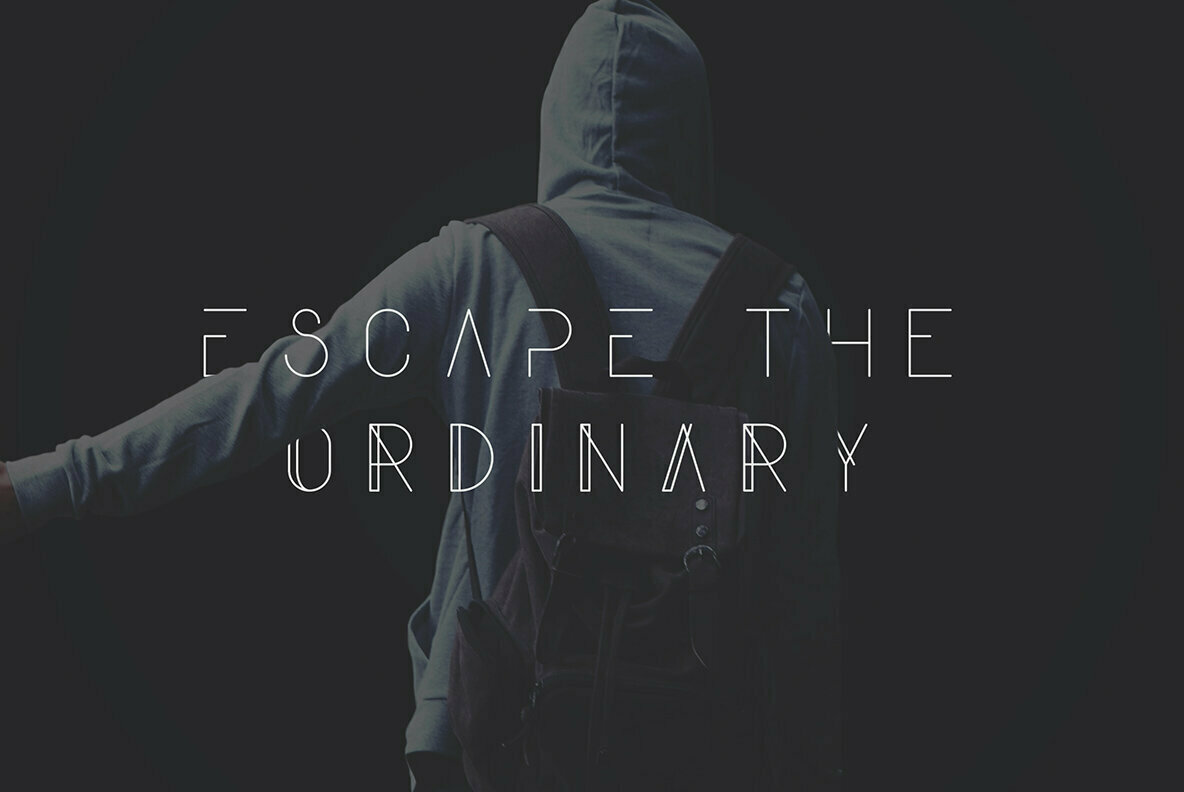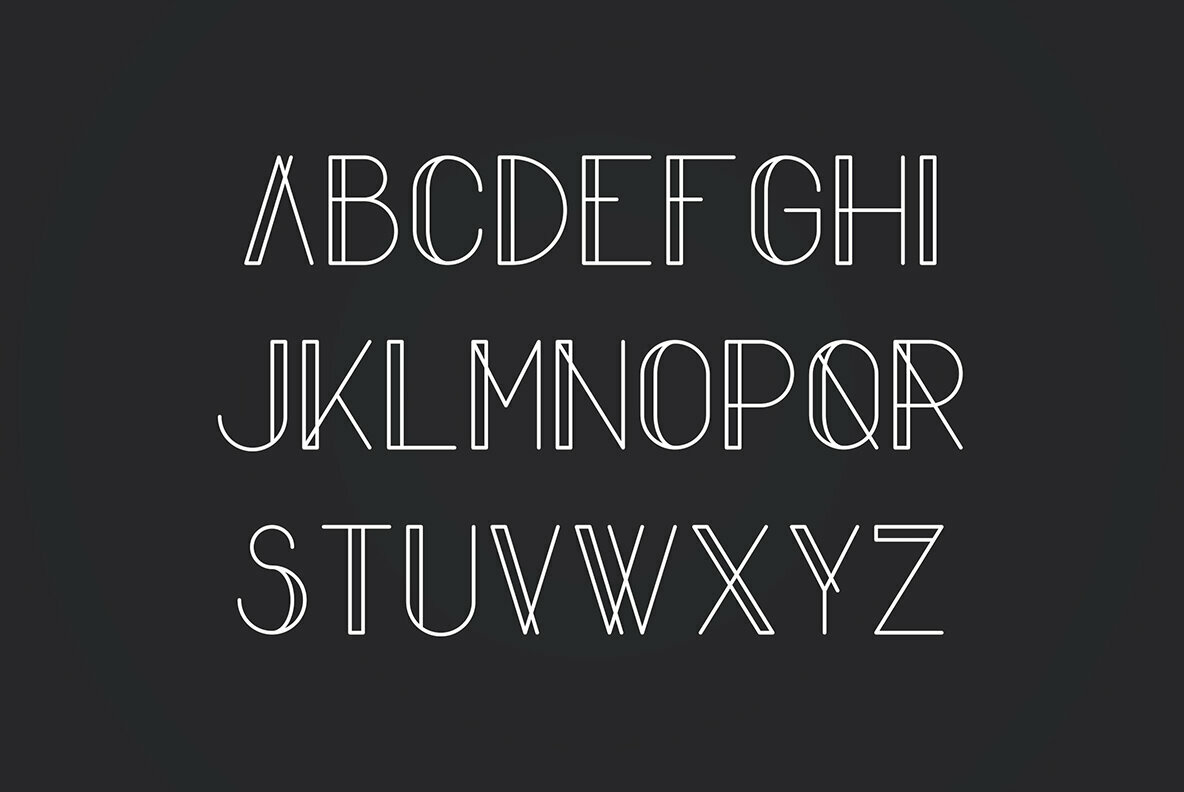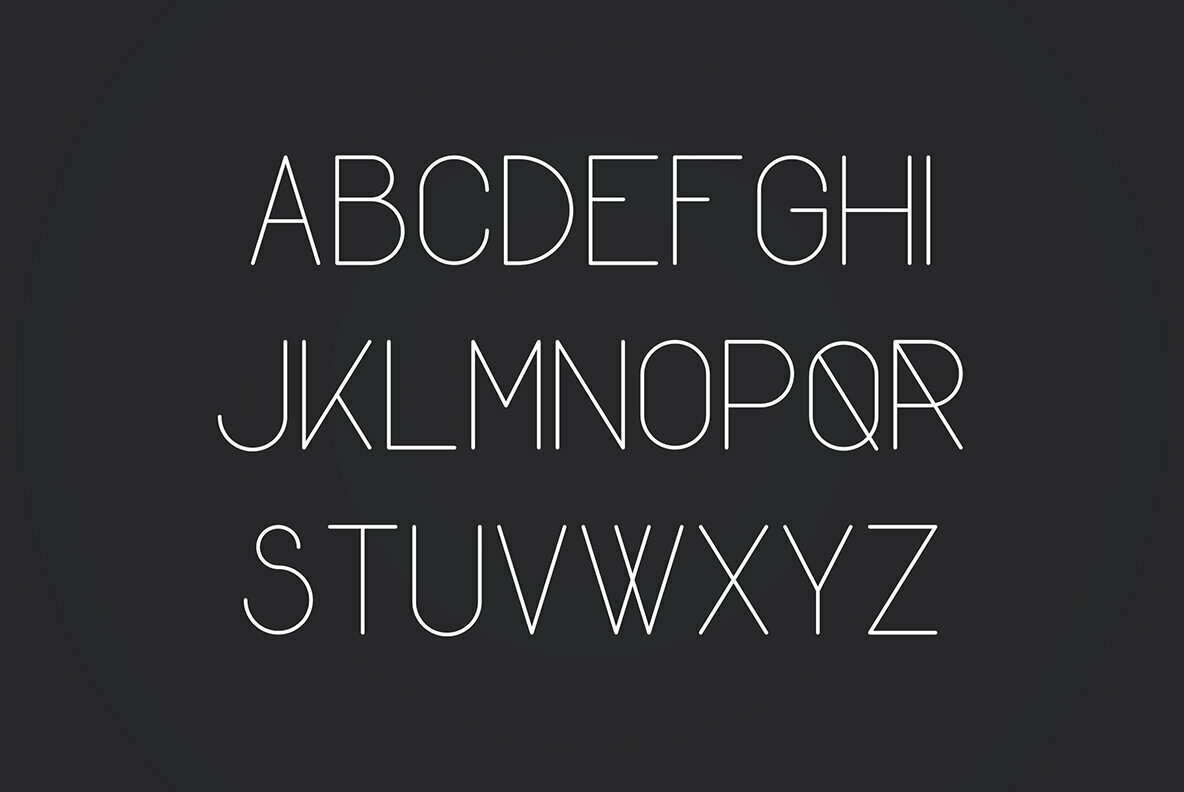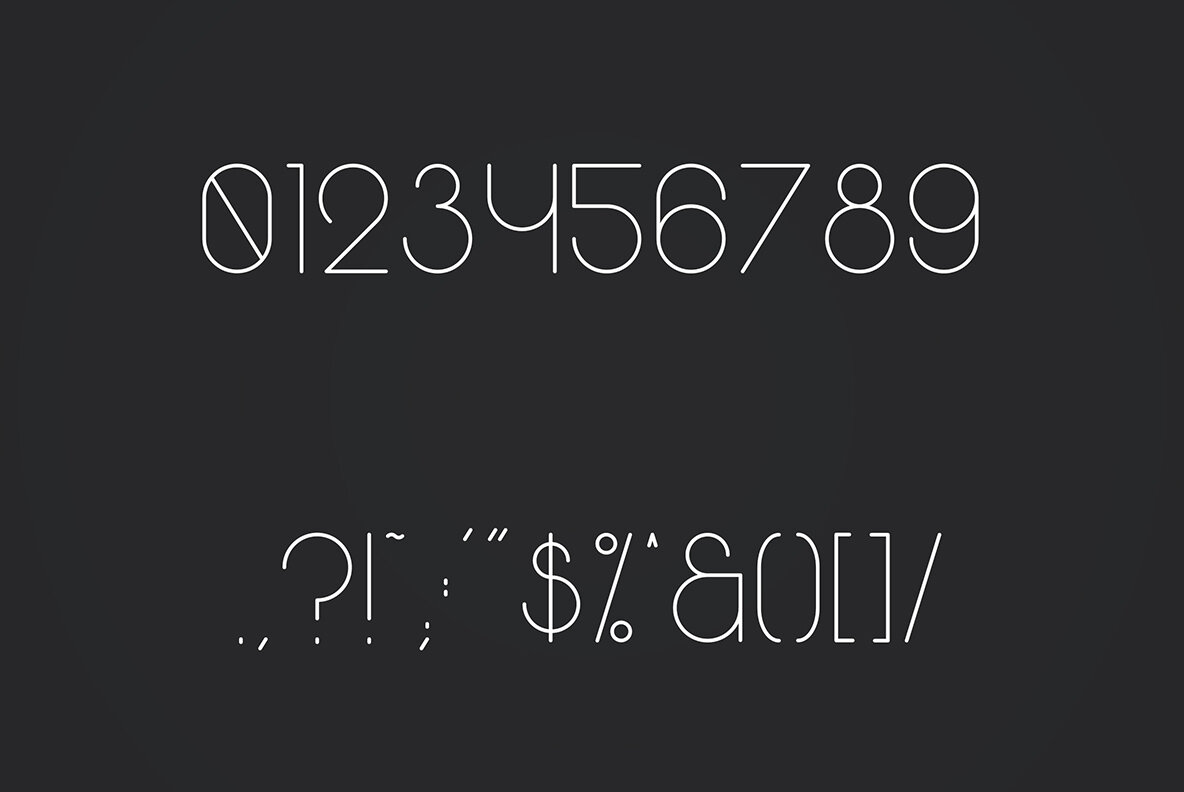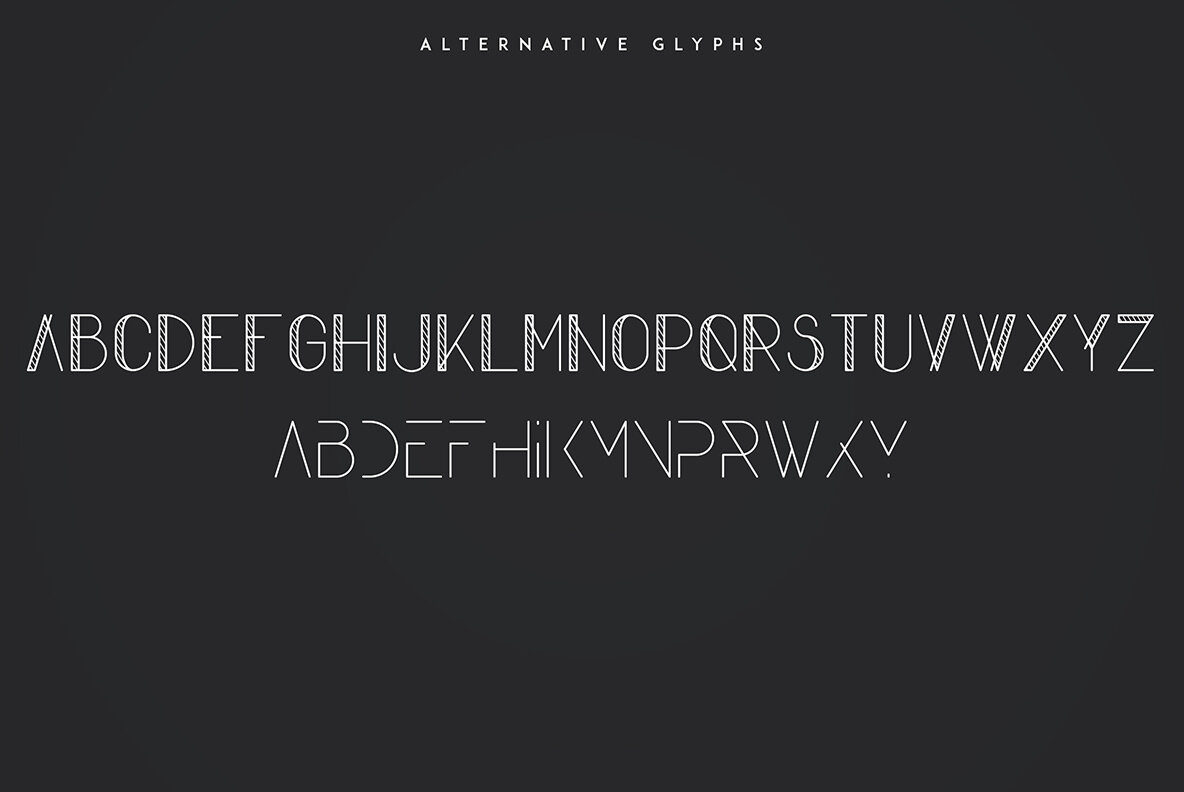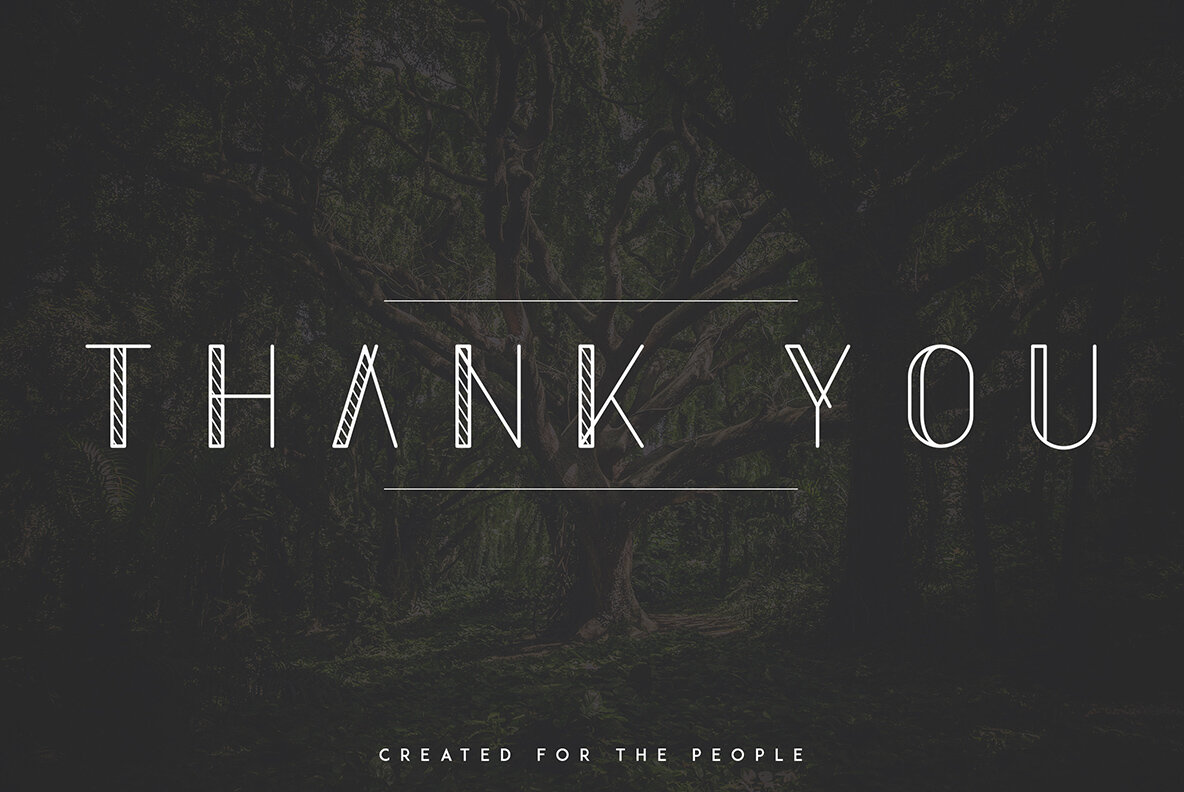
Komorebi Font
Komorebi
Komorebi is a sophisticated modern display font. Its design excellence is showcased through its 41 alternative glyphs and comprehensive multilingual support. Suitable for both large headlines and smaller text sizes, Komorebi is versatile across various applications. The font is ideal for a range of creative initiatives, from branding projects, product packaging, and homeware designs, to wedding invitations and magazine headers. Its stylish appearance also complements digital compositions, providing elegant text overlays on diverse background images.Komorebi: A Modern Display Font with Rich Alternatives